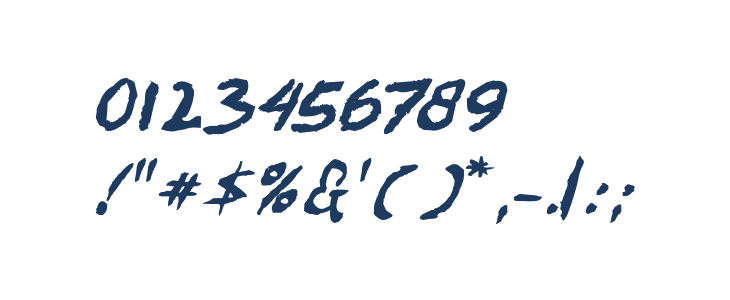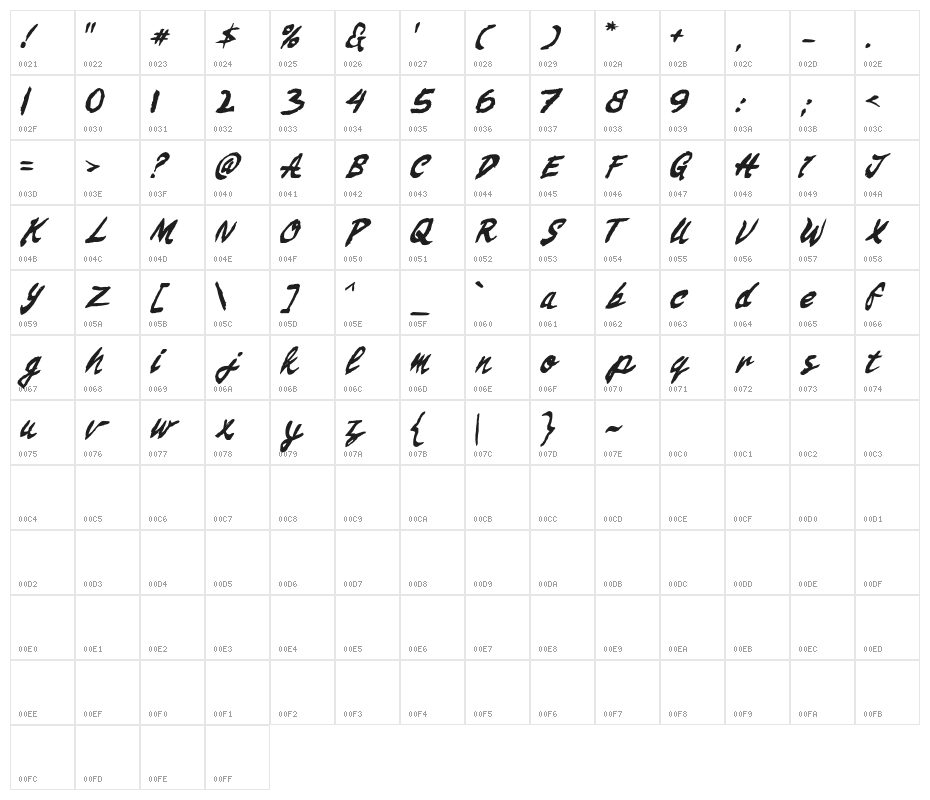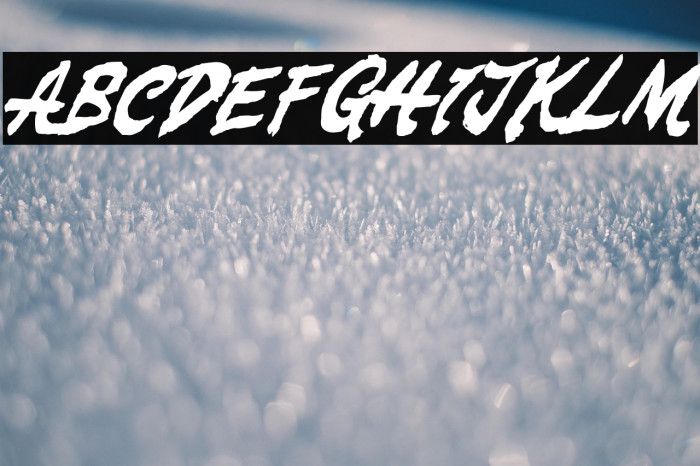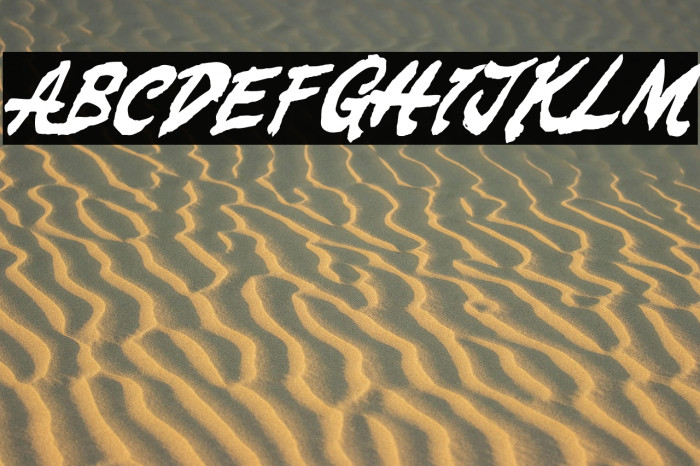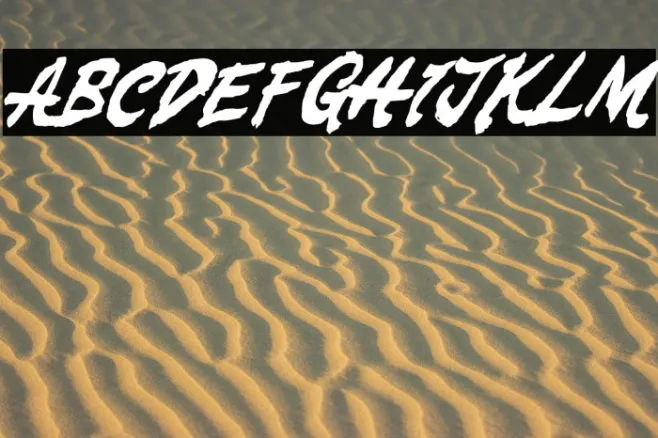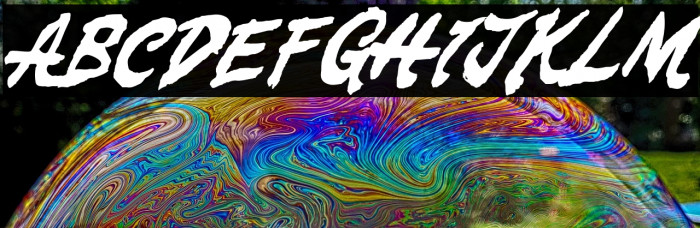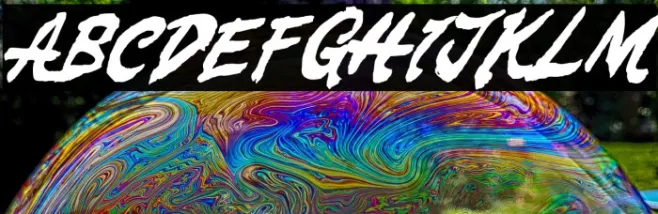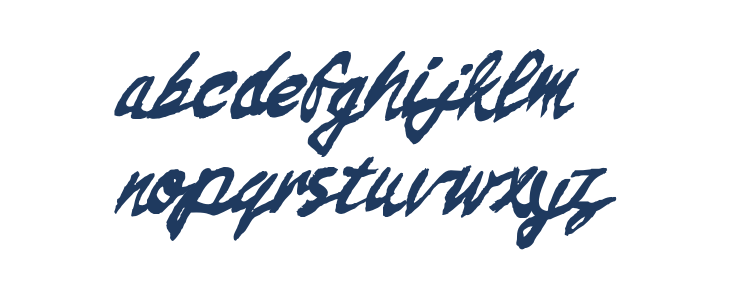
TREESHOOTS Font
TREESHOOTS Description
This font features a bold, expressive style with a handwritten appearance. The strokes are thick and dynamic, giving it a sense of movement and energy. The uppercase and lowercase letters are well-balanced, maintaining a consistent flow throughout. The numbers and special characters follow the same bold and energetic style, making them stand out. This font is ideal for projects that require a personal touch or a bold statement.
| Proposed Projects | Ideal for branding, posters, invitations, and any design requiring a personal, energetic touch. |